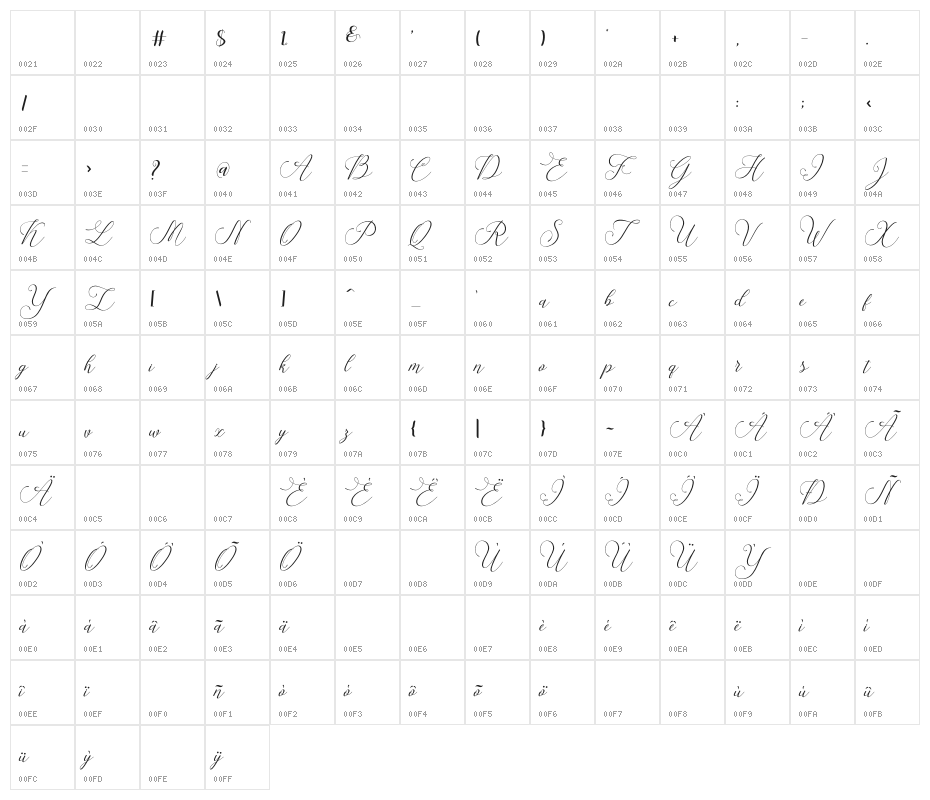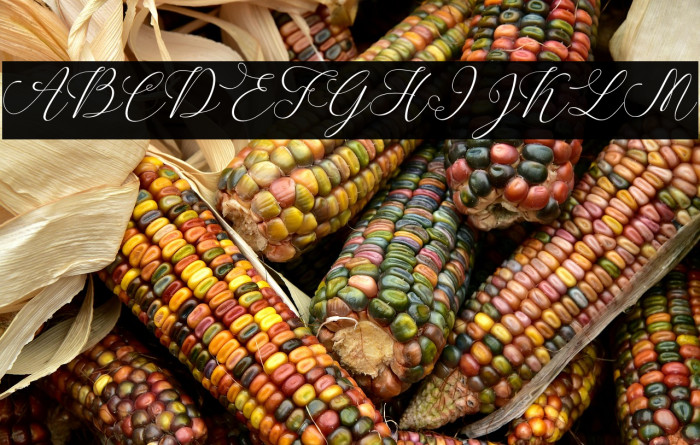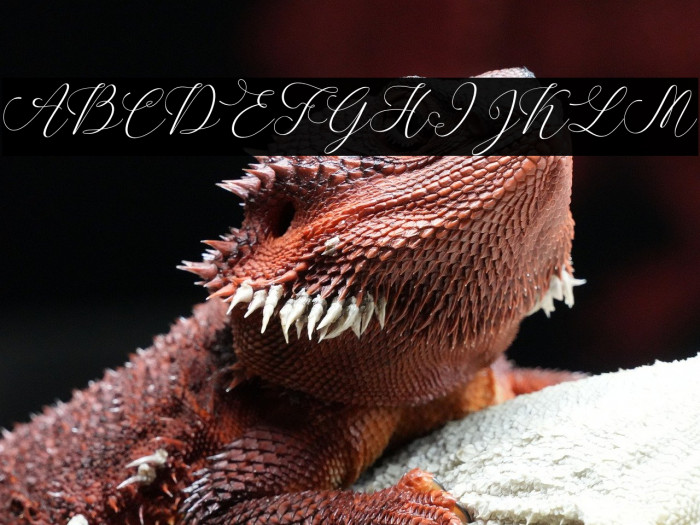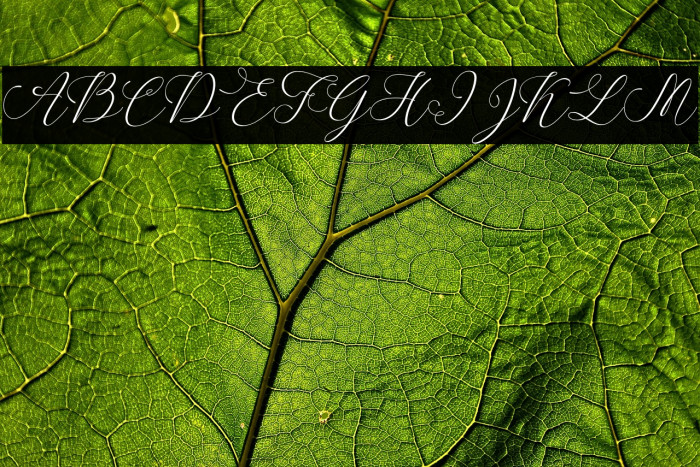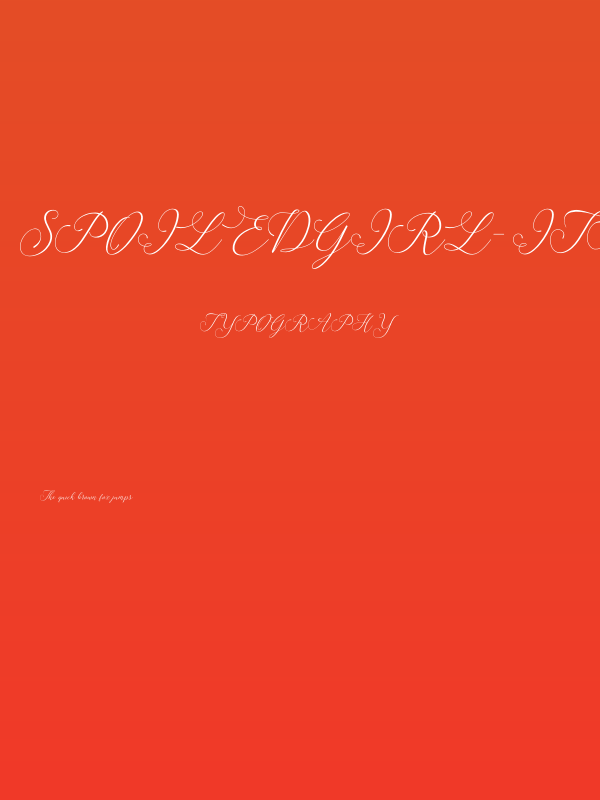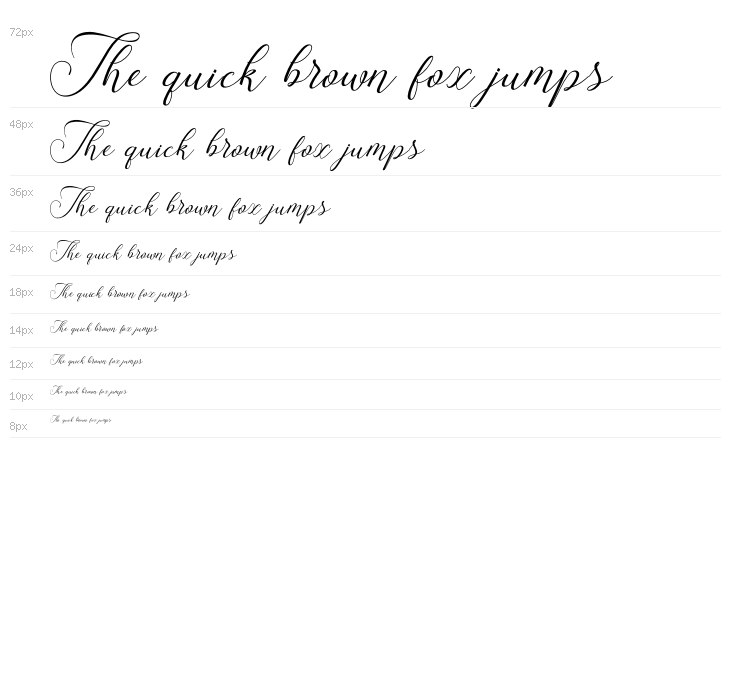
SpoiledGirl-Italic Font
SpoiledGirl-Italic Description
This elegant script font features a flowing, cursive style with delicate loops and swashes. The uppercase letters are ornate, with intricate flourishes that add a touch of sophistication. The lowercase letters maintain a consistent slant, enhancing the italicized appearance. The font's thin strokes and high contrast between thick and thin lines give it a refined and graceful look. The special characters are designed to complement the overall aesthetic, making it suitable for decorative purposes. Its artistic flair makes it ideal for projects that require a personal and stylish touch.